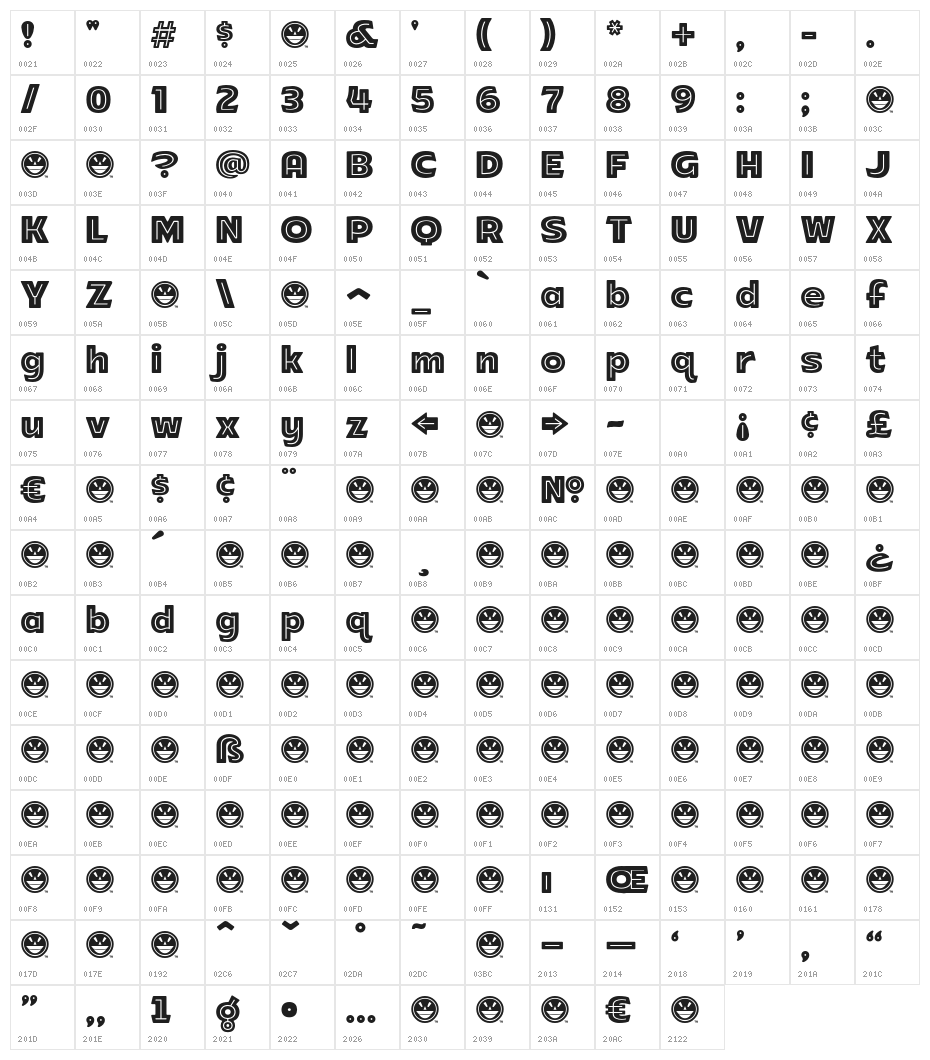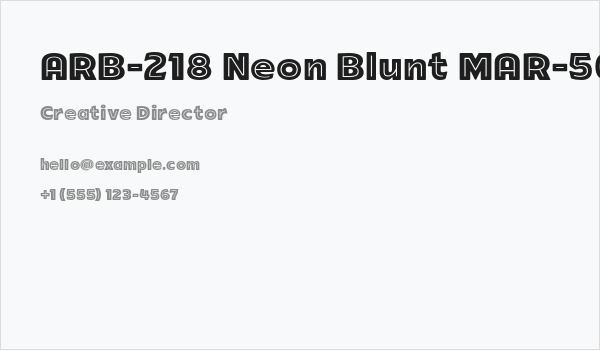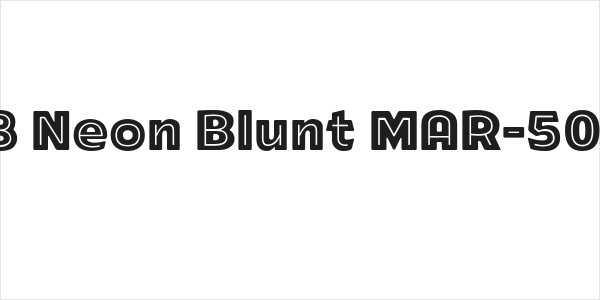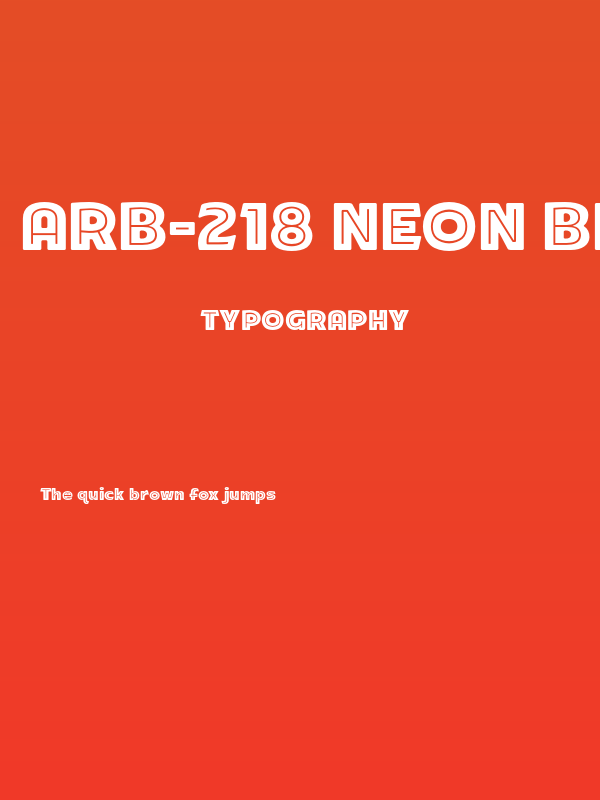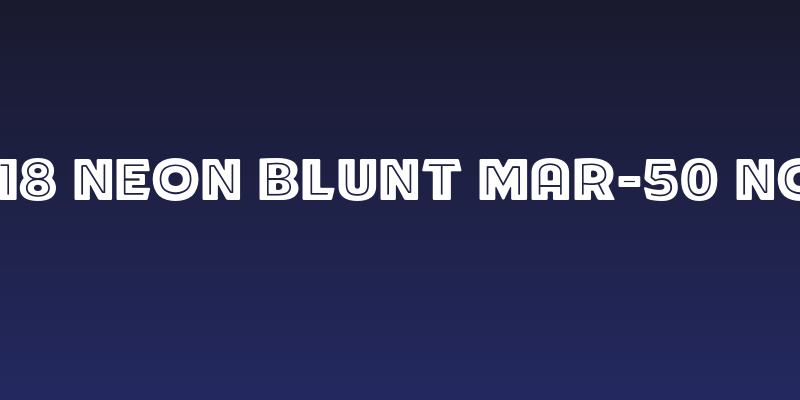
ARB-218 Neon Blunt MAR-50 Normal Font
ARB-218 Neon Blunt MAR-50 Normal Description
This font features a bold, geometric design with a strong presence. The characters are outlined, creating a striking visual effect that is both modern and playful. The uppercase and lowercase letters maintain a consistent style, with rounded edges and uniform stroke widths. Numbers and special characters follow the same design principles, ensuring a cohesive look across all elements. The font's unique style makes it ideal for attention-grabbing headlines and creative projects.
| Proposed Projects | Ideal for branding, posters, signage, and any project requiring a bold, eye-catching typeface. |